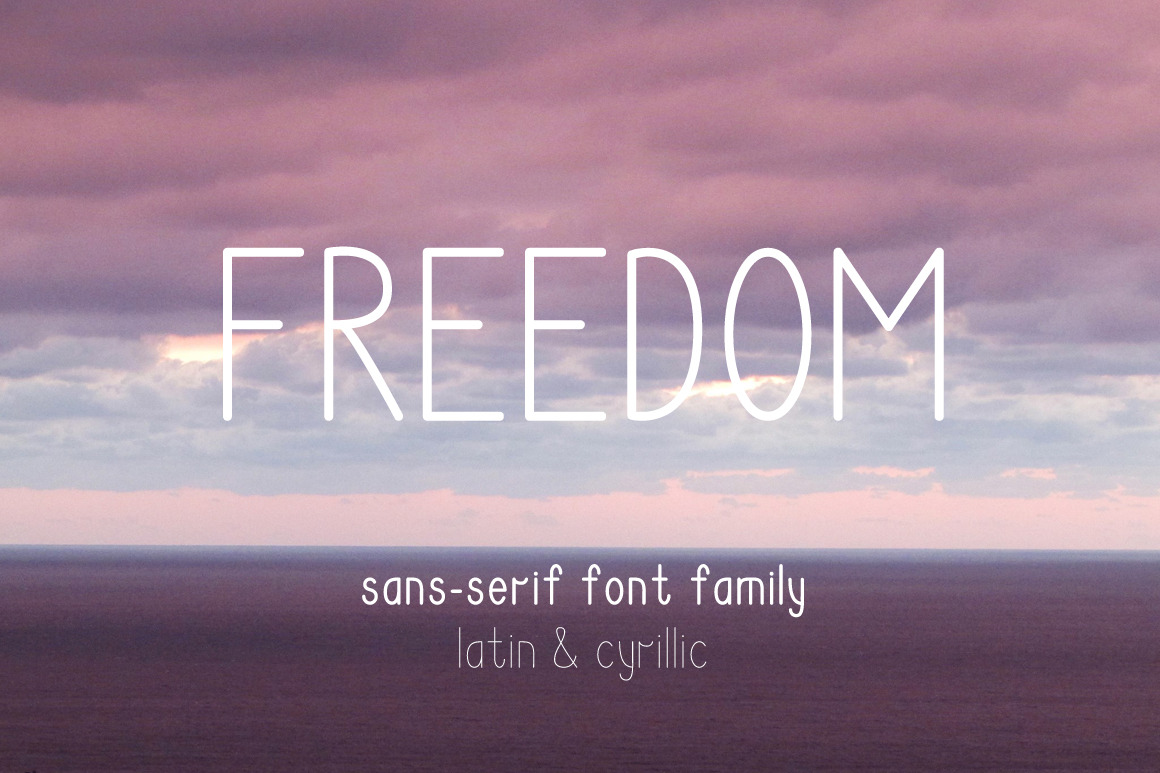
Freedom Font Family. Latin&Cyrillic
Introducing my first font! Freedom is clean and minimalist font family.
- uppercase & lowercase letters
- numbers & punctuation
- cyrillic letters
- three weights